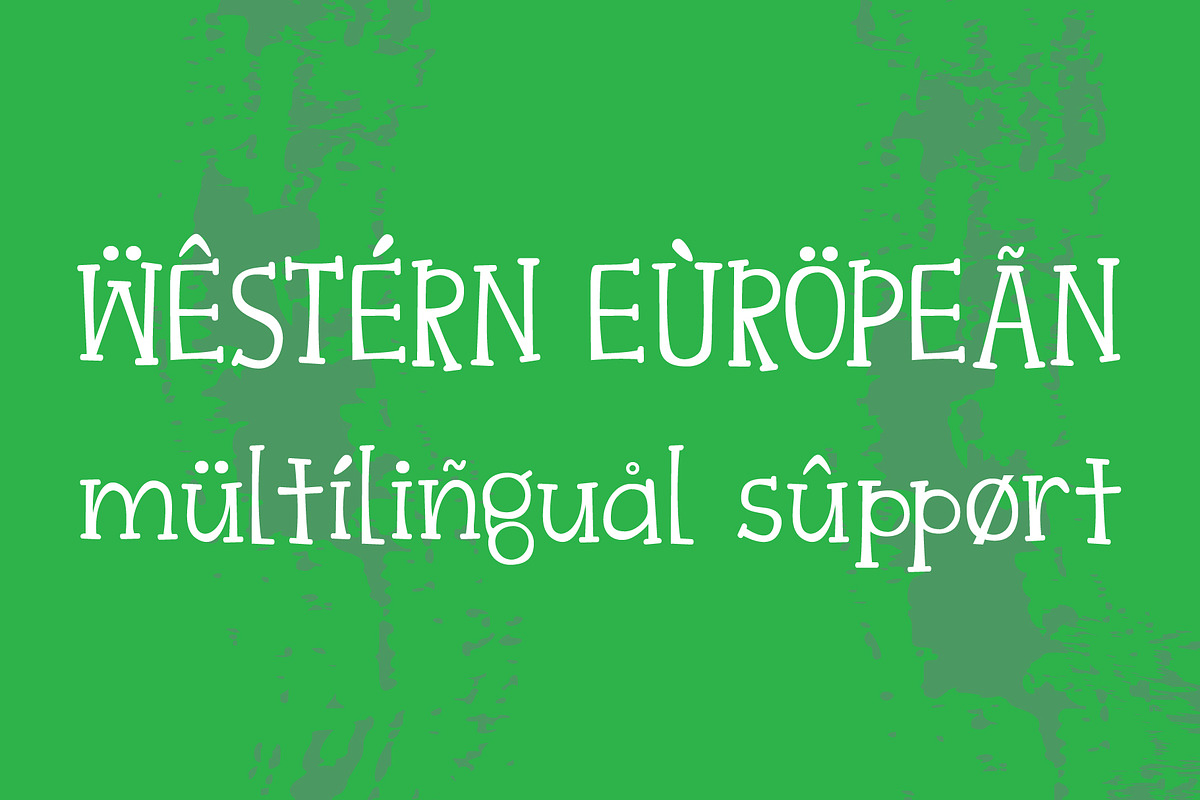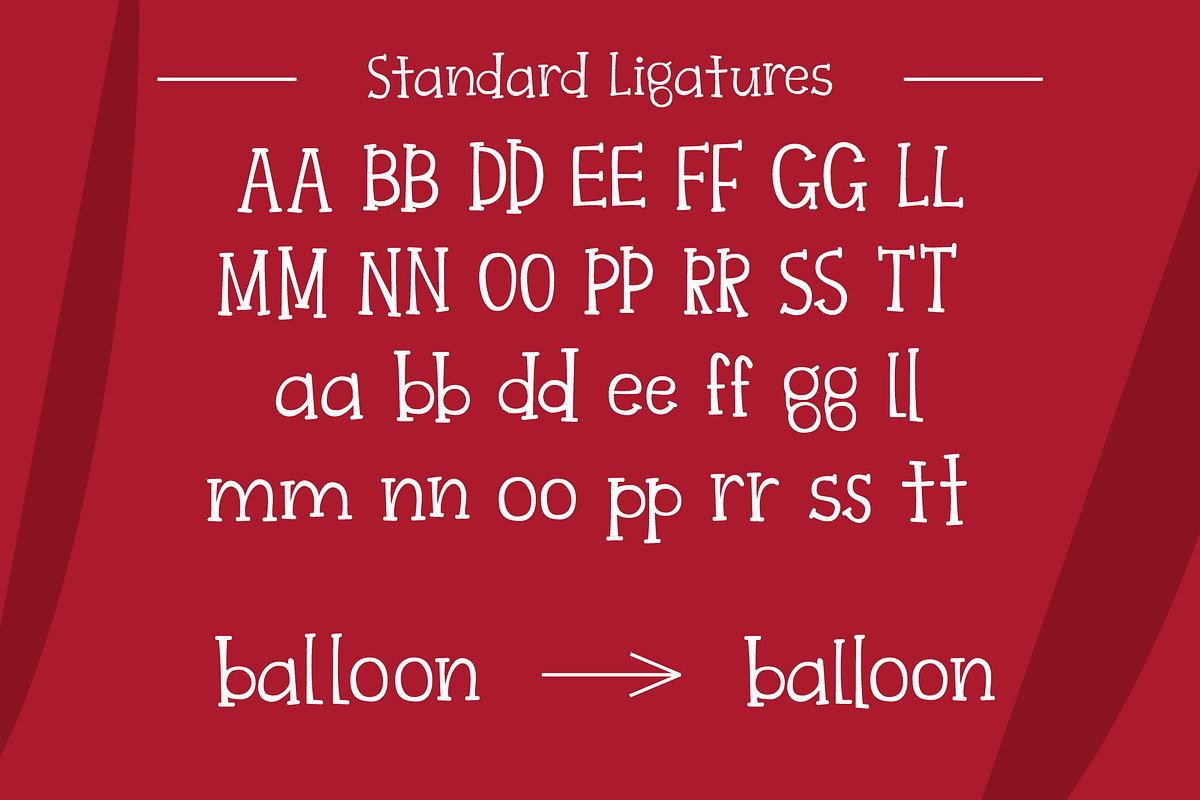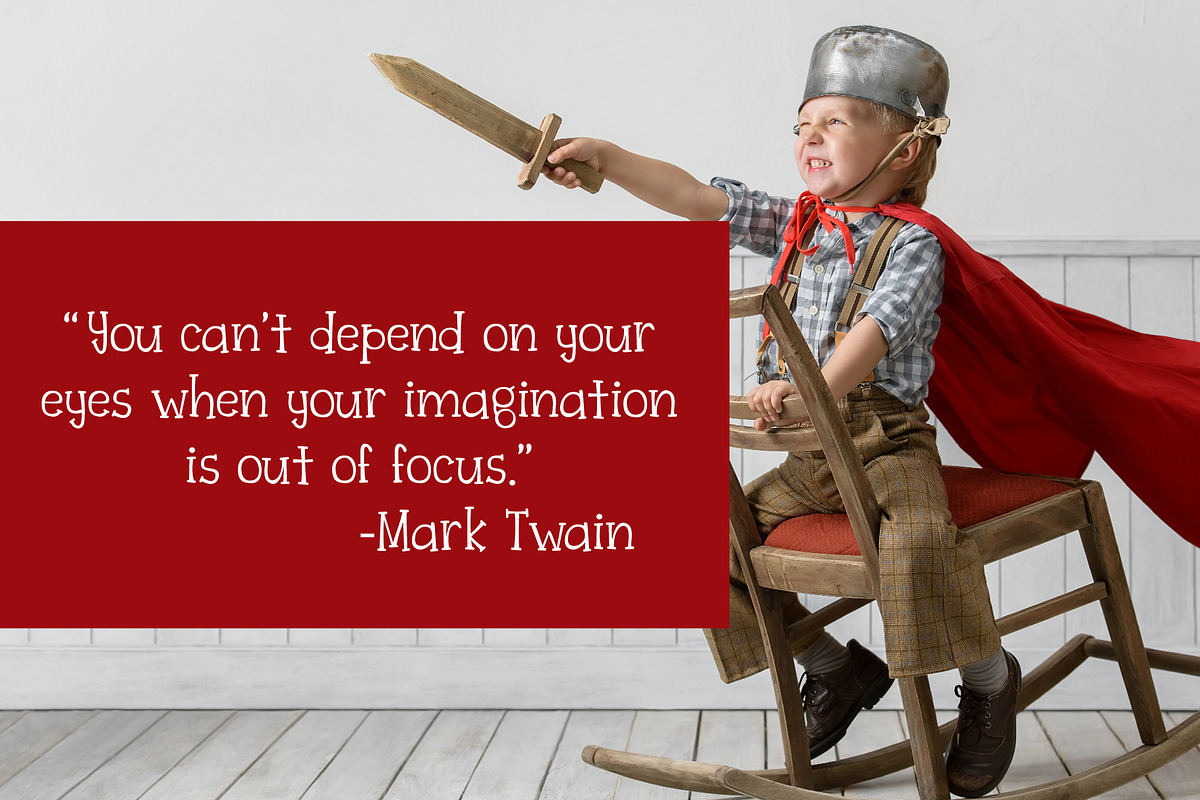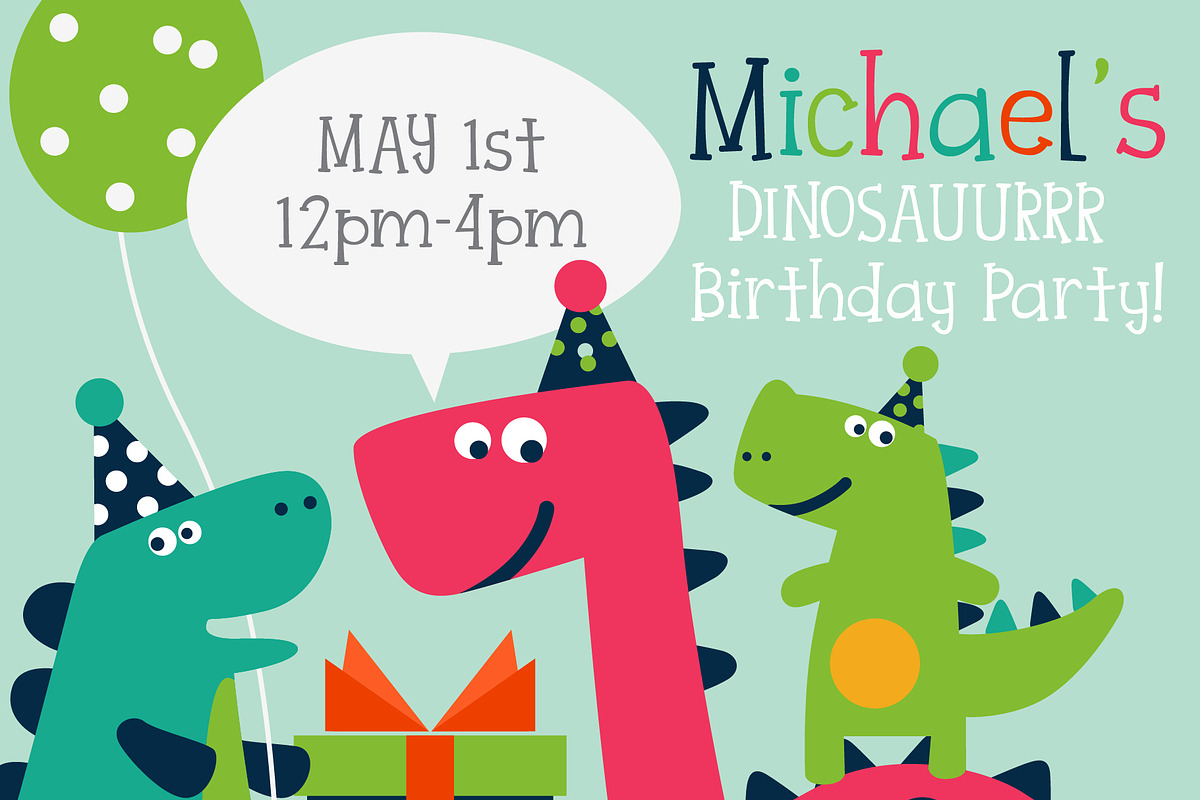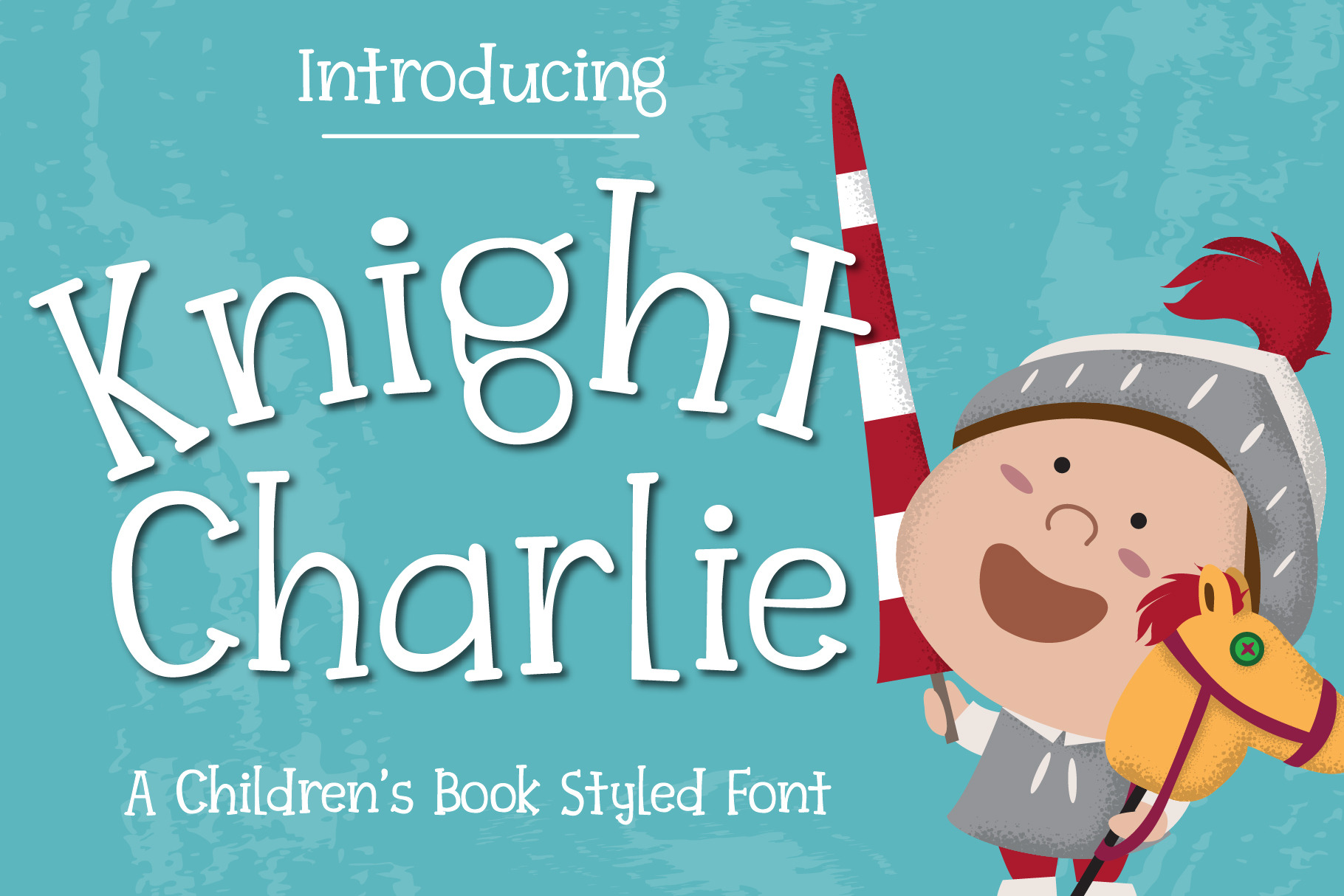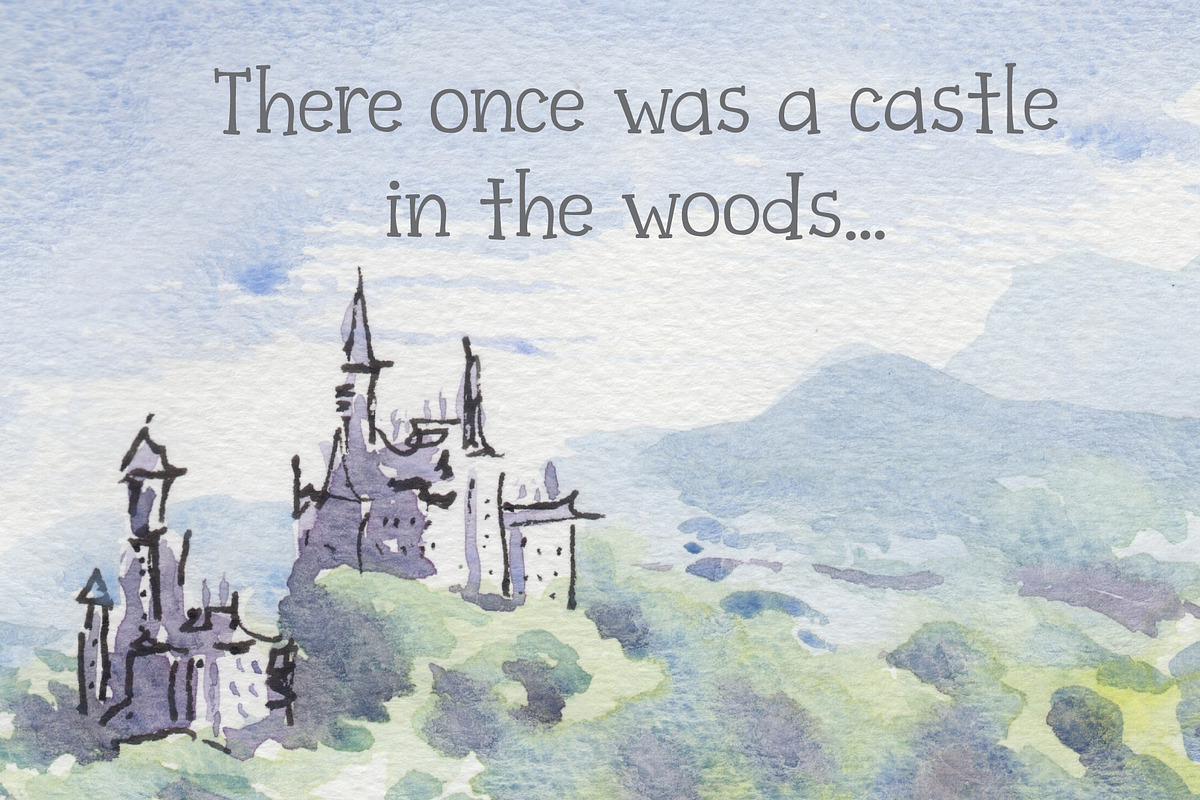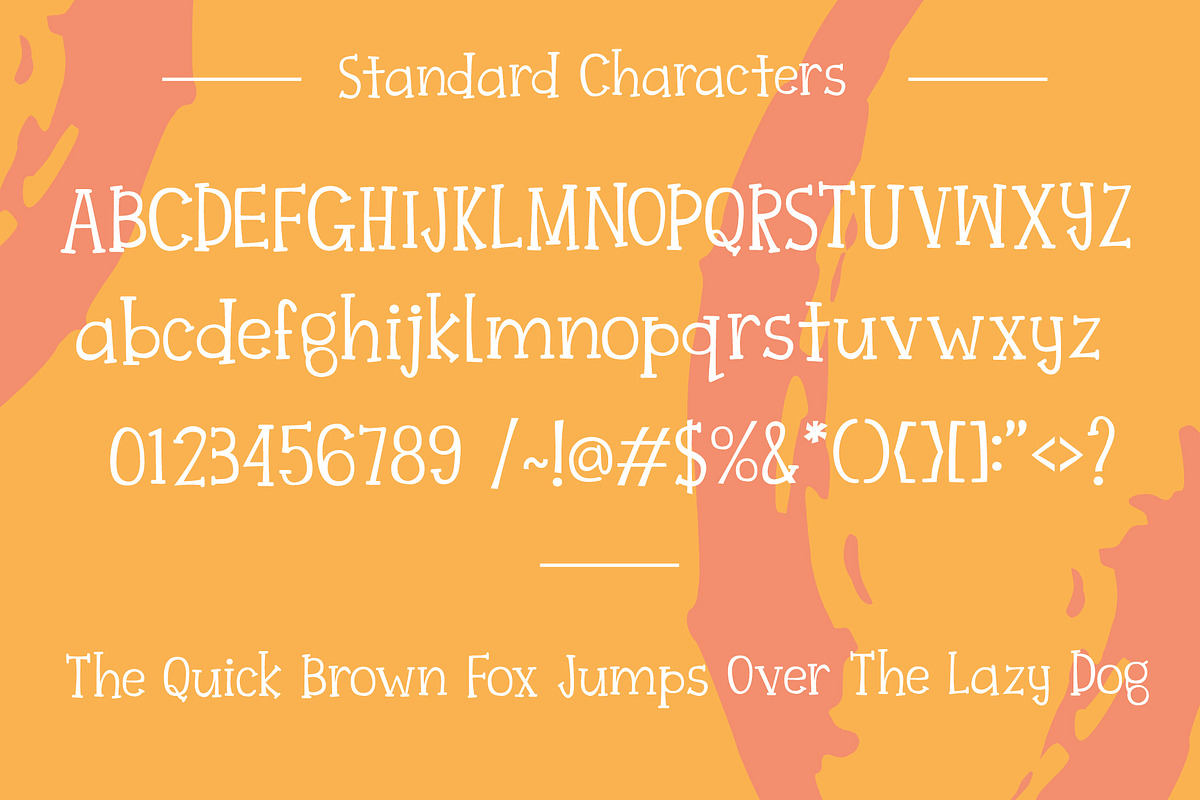
Knight Charlie - Children Font
Introducing, Knight Charlie. A font that was inspired by my baby nephew. It's a play on me telling him "Good Night Charlie". This PUA font is perfect for professional designer, social media, crafters, and children book writer.